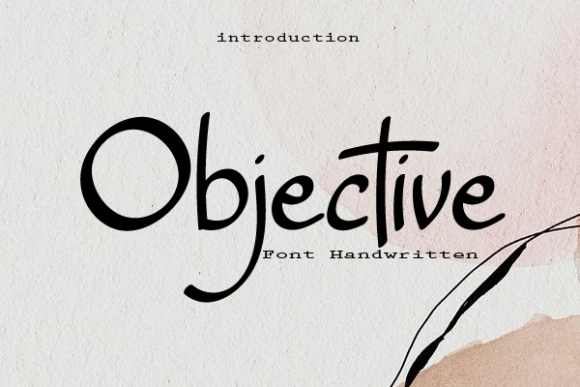
Objective Font
About Objective Font
Objective is a ravishing handwritten font. This versatile script font has a wide spectrum of applications ranging from greeting cards to headlines and is guaranteed to add a romantic feel to your next project.